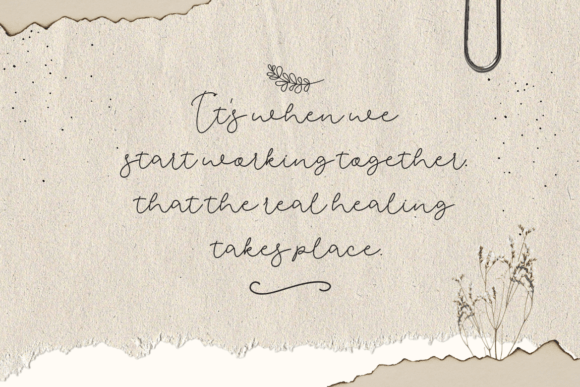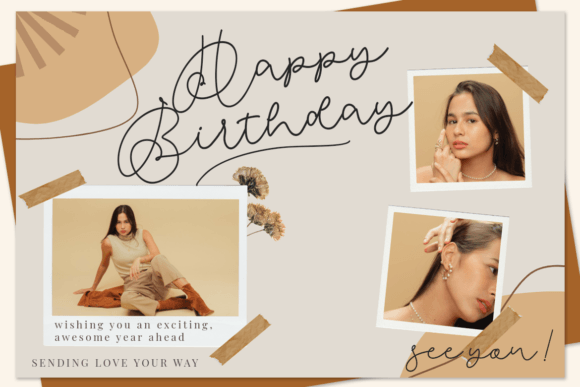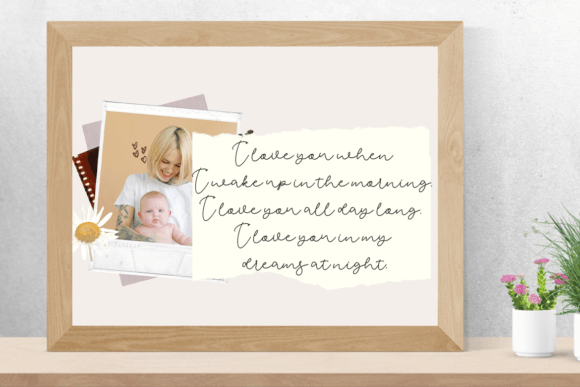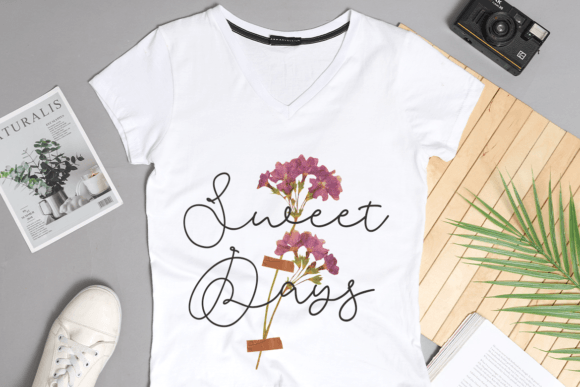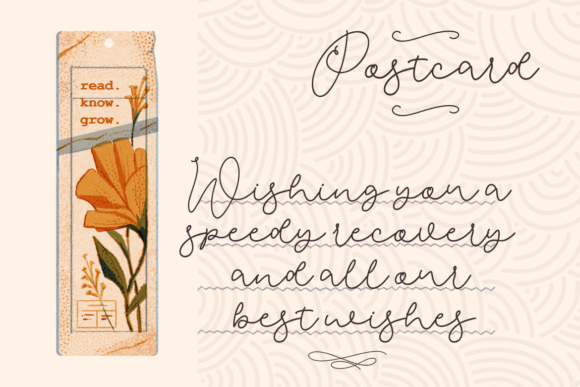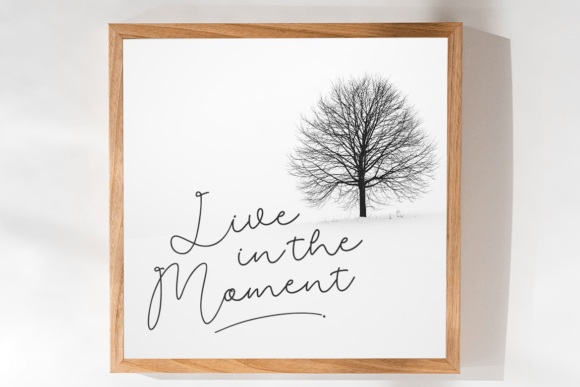
The Ultimate Guide to Anya Beautique Font: Elevate Your Designs with Elegance
I’ll never forget the moment I stumbled upon Anya Beautique Font while working on a branding project for a luxury client. I was on a tight deadline, and my design just wasn’t coming together. The font I was using felt dull and uninspiring, and I knew I needed something special to make my client’s vision shine. That’s when I discovered Anya Beautique – a beautiful and modern script font that instantly elevated my design. In this article, I’ll share my experience with Anya Beautique, its features, and how to make the most of it in your creative projects.
An Honest Review of Anya Beautique Font
Anya Beautique has quickly become one of my go-to fonts, and here’s why:
- ✨ Stunningly beautiful: Anya Beautique boasts elegant, flowing lines that add a touch of sophistication to any design.
- ✅ Highly versatile: This font is perfect for a wide range of projects, from Instagram graphics to calligraphy scripts for DIY projects.
- 💡 Instant creativity boost: Anya Beautique’s unique style and simplicity inspire creativity and help you think outside the box.
While Anya Beautique is an exceptional font, it’s not without its quirks:
- ⚠️ Limited use in body text: Due to its script nature, Anya Beautique might not be the best choice for lengthy body text. It’s ideal for headings, titles, or short phrases.
- 🤔 Requires some experimentation: To get the most out of Anya Beautique, you may need to experiment with different font sizes, colors, and arrangements.
Anya Beautique supports OpenType features, which allow you to access additional glyphs, stylistic alternates, and ligatures. To access these features:
The Story Behind Anya Beautique Font
Anya Beautique was designed with the intention of creating a beautiful, modern script font that would inspire creativity and elegance. The designer aimed to craft a font that would be both simple and stylish, making it perfect for a wide range of creative projects. While the exact backstory of Anya Beautique might be unknown, its design is undoubtedly a reflection of the designer’s passion for typography and aesthetics.
| Font Name | Anya Beautique Font |
| Author | Masa Aska Sanurumi |
| What type of projects is Anya Beautique suitable for? | Anya Beautique is perfect for branding, advertising, social media graphics, calligraphy scripts, and DIY projects. |